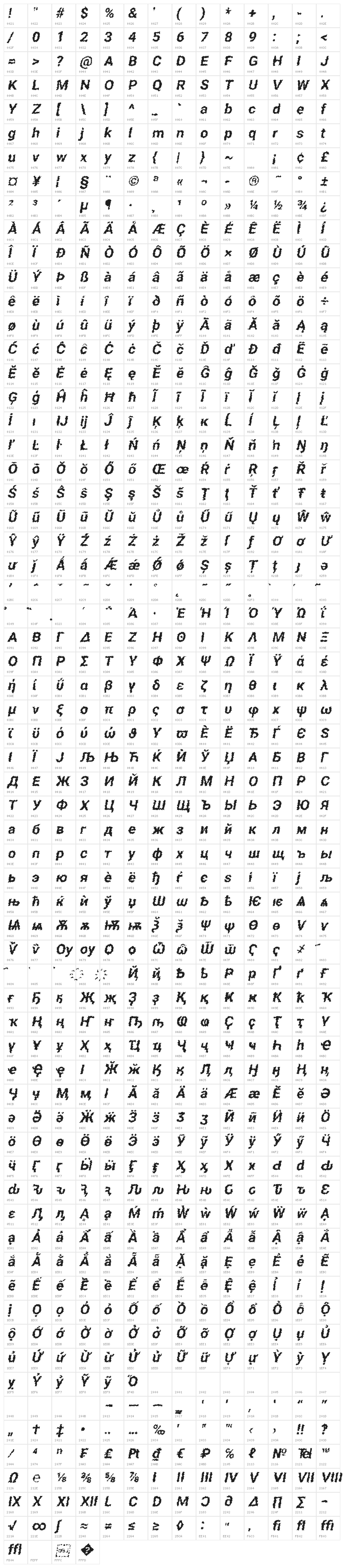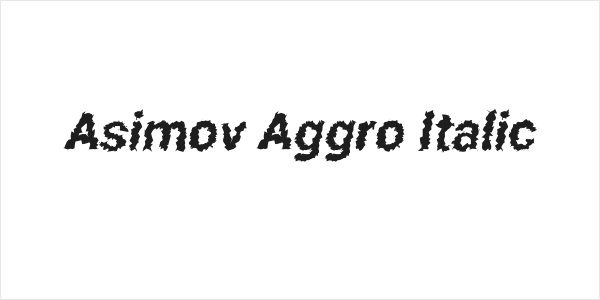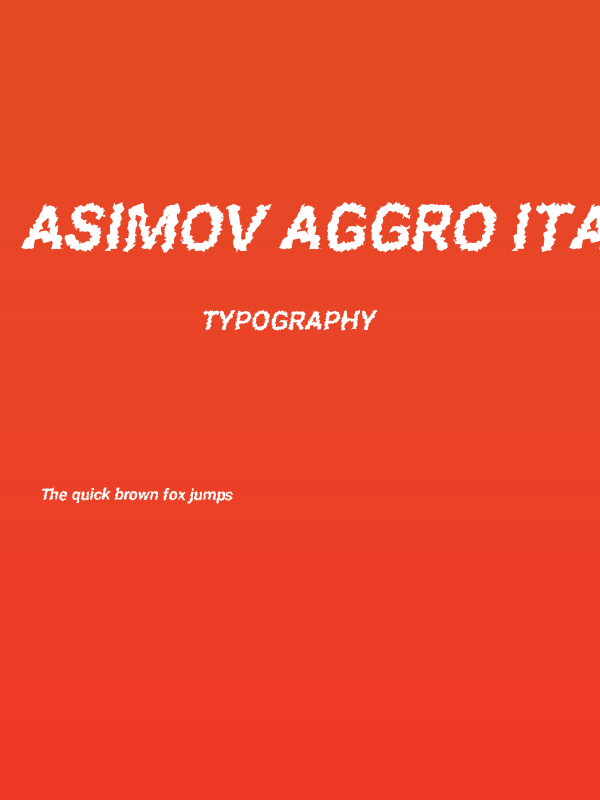
Asimov Aggro Italic Font
Asimov Aggro Italic Description
This font features a bold and aggressive design with jagged, thorn-like edges that give it a dynamic and edgy appearance. The italic slant adds a sense of movement and urgency, making it stand out in any design. The uppercase and lowercase letters maintain a consistent style, with each character exhibiting a unique, rugged texture. Numbers and special characters are equally bold and maintain the same thorny aesthetic, ensuring uniformity across all text elements. This font is perfect for projects that require a strong, impactful visual statement.
| Overall Style | Modern, Edgy |
| Proposed Projects | Ideal for music album covers, extreme sports branding, horror movie posters, and edgy fashion labels. |